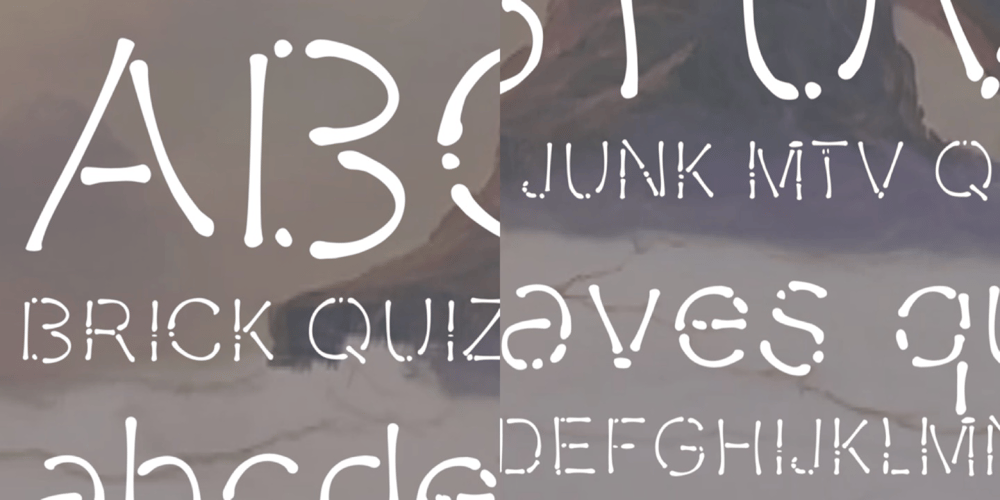
Gyftype Bones Font Family was designed by Carmen Garriga Ríos and published by giftype. Gyftype Bones contains 1 styles and family package options. This font is based on the different bones of an skeleton , it is ideal To make a clear an original text , designed to make a very special gift !. On the other hand it has a multitude of use both in posters and in documents of differents Kind , parties , invitations …finally , it includes Greek and Cyrilic characters.